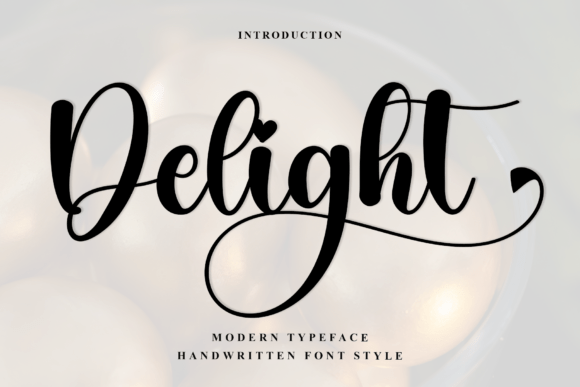
The Perfect Blend of Elegance and Versatility
As a designer, there’s nothing quite like the thrill of bringing a project to life. You’ve poured your heart and soul into every detail, from the color palette to the typography. And then, it happens – that ‘aha’ moment when everything comes together in perfect harmony. For many of us, this moment is all about finding the perfect font to elevate our design.
That’s where Delight Font comes in – a stylish handwritten font that exudes a contemporary atmosphere and impeccable form. Inspired by the timeless classic calligraphy, Delight Font was designed to add a touch of sophistication to your projects. With its balanced and varied style, it’s the perfect addition to any design. Whether you’re a seasoned pro or just starting out, Delight Font is a valuable tool that will help you take your projects to the next level.
- Unique Characteristics: Delight Font features a modern and elegant design, with a unique blend of rounded and geometric shapes, making it perfect for creating visually appealing and sophisticated designs.
Delight Font Review
First of all, let’s talk about what Delight Font does right. It’s ✨ visually appealing ✨, with a mix of modern and vintage elements that give it a unique character. The font is also ✨ highly legible ✨, making it a great choice for body text. Additionally, Delight Font comes with a wide range of weights and styles, allowing you to add some ✨ depth ✨ to your designs.
However, there are a few limitations to consider. ⚠️ The font may not be the best choice for headings or titles, as it can get a bit too playful and lose its impact. ⚠️ Additionally, some of the characters may not be perfectly optimized for certain languages, which could lead to issues with text flow and alignment.
- Visually appealing and modern design
- Highly legible, making it great for body text
- Wide range of weights and styles
- Support for multiple languages
Overall, I think Delight Font is a great addition to any designer’s toolkit. It’s a versatile and stylish font that can add some ✨ personality ✨ to your designs. While it may have some limitations, it’s definitely worth considering for your next project.
Getting the Most Out of Delight Font
Delight Font is a versatile font that can be used for various purposes, including:
- Print materials and marketing materials
Some tips for getting the most out of Delight Font include:
- Experiment with different font styles and combinations
- Use Delight Font in conjunction with other design elements to create a cohesive look
- Pay attention to font size and spacing for optimal readability